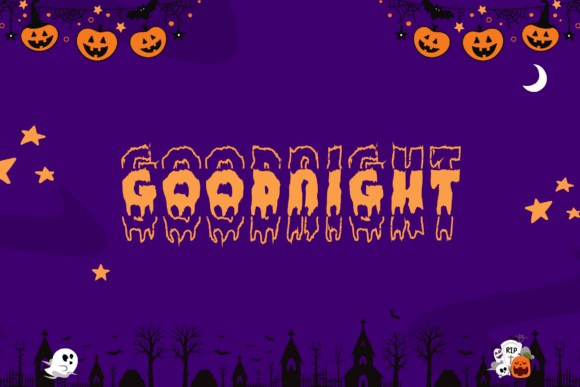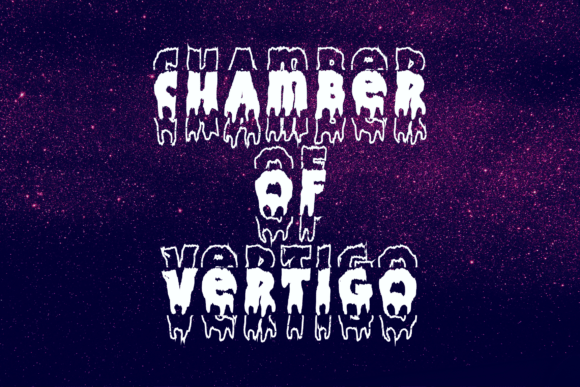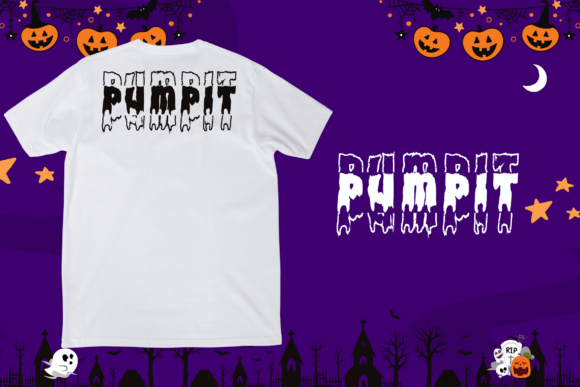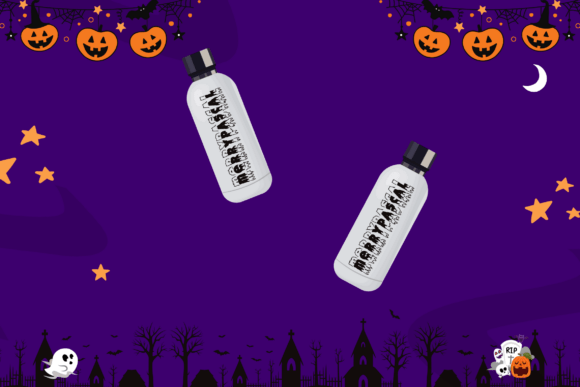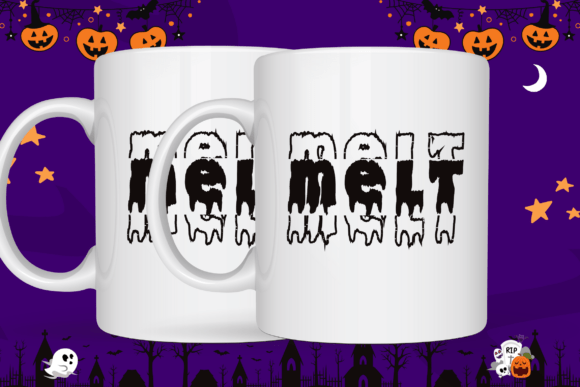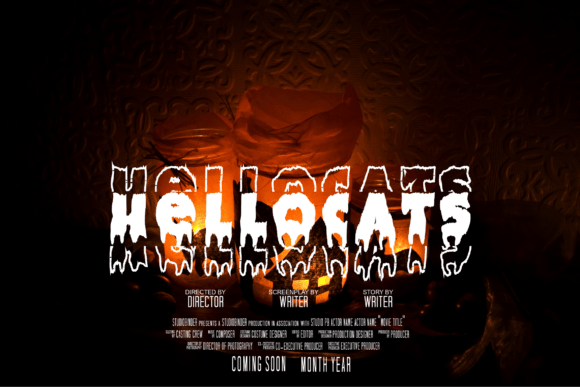
Introduction to Handwriting Melted Stacked Font
Have you ever been brainstorming ideas for a creative project, only to be struck by the perfect font that brings your concept to life? That’s exactly what happened to designers who stumbled upon the unique and captivating Handwriting Melted Stacked Font. This charming typeface is more than just a design element – it’s a statement piece that adds a touch of personality to any project.
Whether you’re a seasoned designer or a creative enthusiast, Handwriting Melted Stacked Font is a valuable resource that can elevate your work to the next level. Its high-quality design and transparent background make it a versatile choice for a wide range of applications, from social media posts to DIY projects and theme-based invitations. With its playful melt-off-the-page aesthetic, this font is sure to capture attention and leave a lasting impression.
Key Features of Handwriting Melted Stacked Font
- Unique Handwritten Style: This font features a distinctive, melted stacked design that adds a touch of creativity to any project.
- High-Quality Design: With its transparent background and crisp, clear lines, this font is perfect for use in a variety of creative projects, from logos to graphics.
- High Resolution: This font is available in high resolution, ensuring that it looks great on both small and large scales.
- Perfect for Designers: The Handwriting Melted Stacked Font is an excellent resource for designers working on creative projects, including branding, advertising, and more.
- Transparent Background: The font’s transparent background makes it easy to layer and combine with other design elements, giving you complete control over the final result.
Honest Review: Handwriting Melted Stacked Font
I recently stumbled upon the Handwriting Melted Stacked Font, and I’m excited to share my thoughts on this design resource. As a designer, I’m always on the lookout for high-quality fonts that can elevate my creative projects.
- Unique, melted effect that adds a touch of whimsy to any design
One potential limitation is that the font may be too ornate for some projects, and the melted effect can be distracting if not used thoughtfully.
- May be too ornate for simple designs
- Melted effect can be distracting if not used carefully
Overall, I’m impressed with the Handwriting Melted Stacked Font. While it may have some limitations, its unique style and transparent background make it a valuable addition to any designer’s toolkit.
How to Use Handwriting Melted Stacked Font
Tips for Getting the Most Out of Handwriting Melted Stacked Font
To get the most out of this font, experiment with different font sizes, colors, and combinations. You can also pair it with other fonts to create a unique and creative look. The transparent background allows for endless design possibilities.
Handwriting Melted Stacked Font is perfect for:
- Food and beverage branding
- Children’s book illustrations
Alternatives to Handwriting Melted Stacked Font
1. Whimsy Stacked Script
Whimsy Stacked Script is a beautiful, high-quality font perfect for creative projects requiring a playful touch. It’s available for free download and features a transparent background for easy editing. Use it for invitations, greeting cards, or any design that needs a whimsical feel.
Whimsy Stacked Script compares to Handwriting Melted Stacked Font in its stacked, handwritten style, but with a more delicate and intricate design. While Handwriting Melted Stacked Font has a more distressed look, Whimsy Stacked Script is cleaner and more refined.
Can I stack the Handwriting Melted Stacked Font with other fonts in my design?
Yes, the Handwriting Melted Stacked Font is designed to be stacked with other fonts, making it a versatile design resource for creative projects. You can combine it with other fonts to create unique and visually appealing text effects. The font’s melted, stacked design allows for easy layering and manipulation, giving you endless possibilities for creative expression.